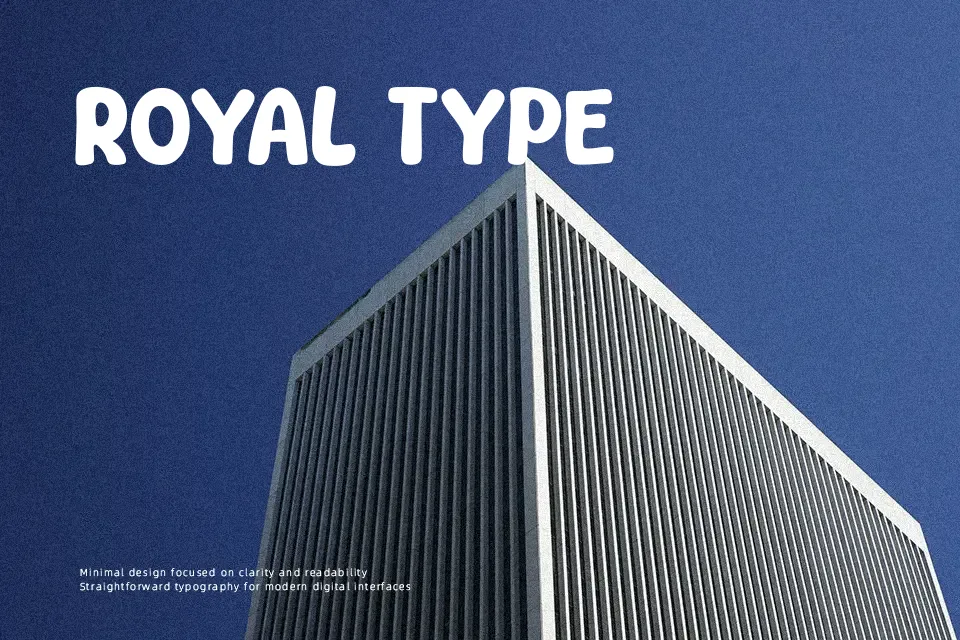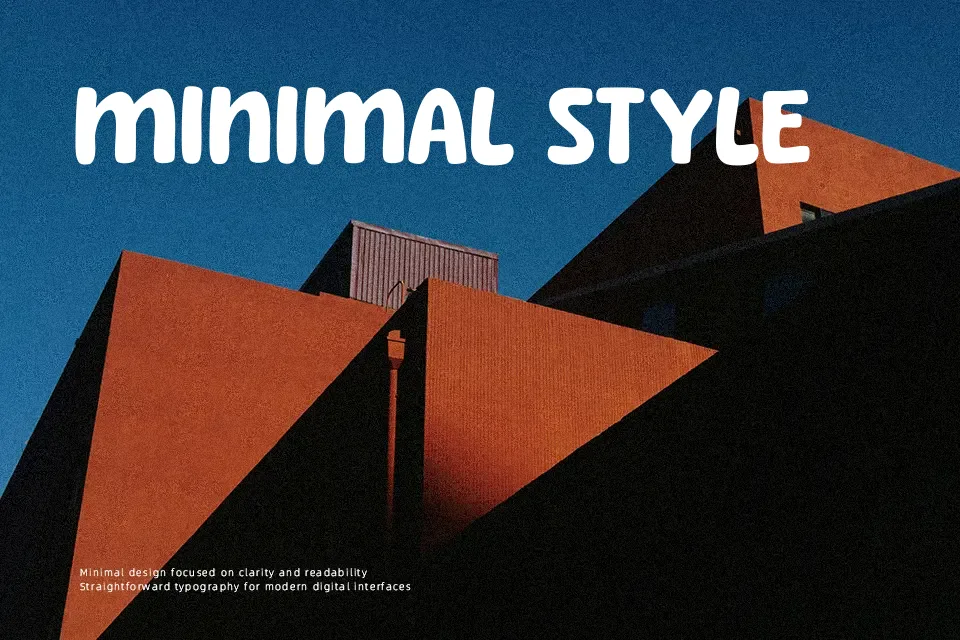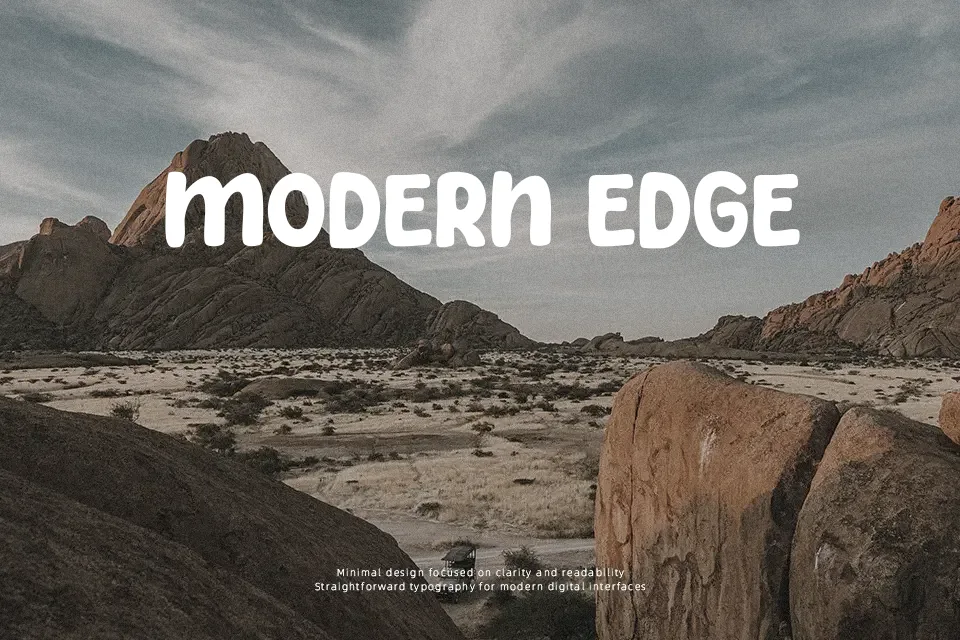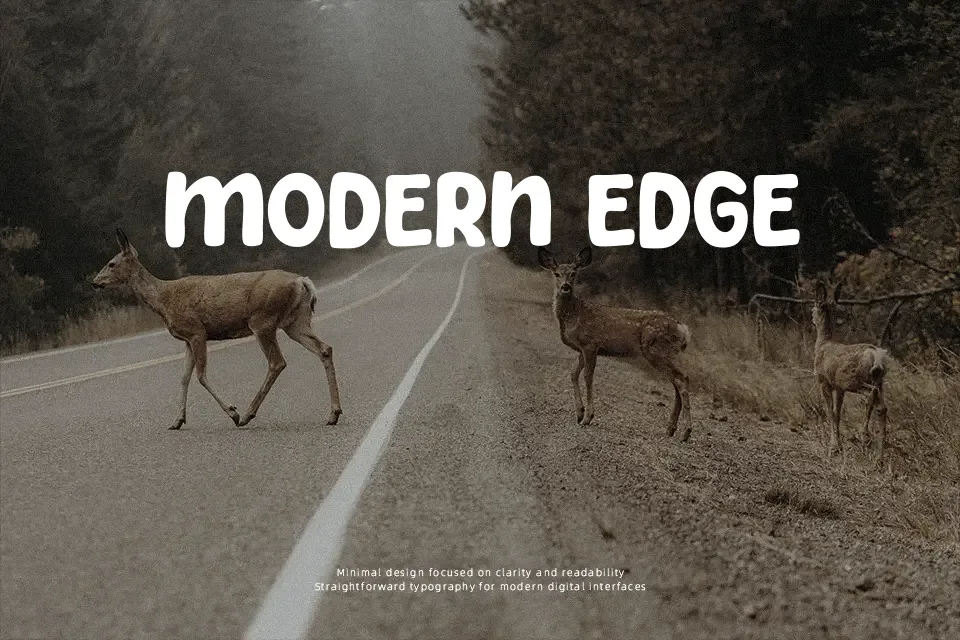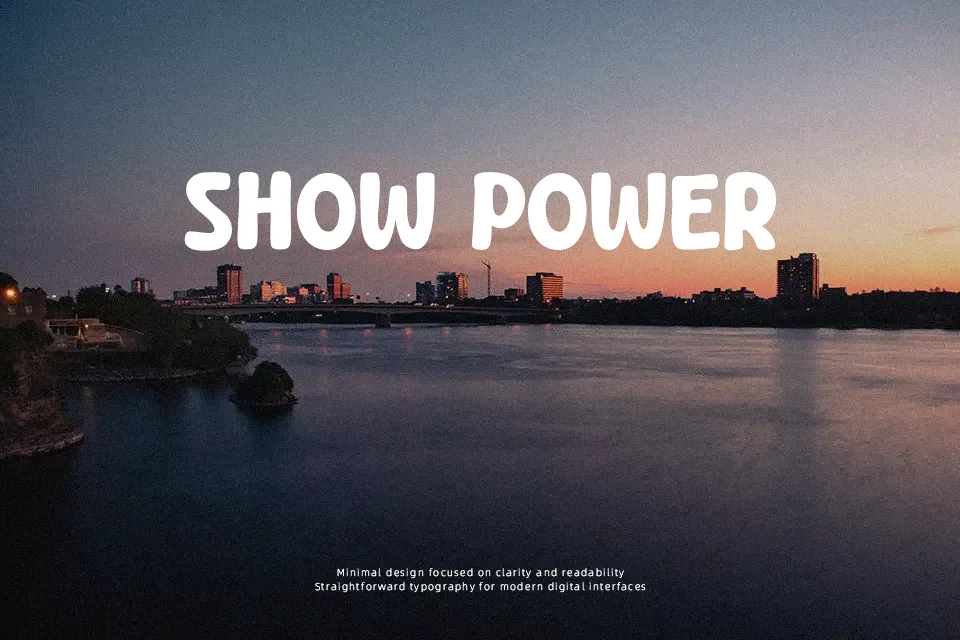
Bread Coffee Font
Bread Coffee is a bold display script with thick, rounded strokes, loose spacing, and irregular letterforms that read like handwritten bubble letters straight from a kids’ storybook. The curves are soft and bouncy, so headlines feel approachable rather than sharp or formal. It works nicely on children’s product labels, birthday banners, classroom posters, or seasonal cards where you want warmth and fun to come through at a glance. On the other hand, the playful rhythm and decorative shapes make it a poor fit for dense paragraphs, serious corporate identities, or very small UI text. If you like rounded cartoon fonts, this one gives a slightly more casual, doodled look than many cleaner comic options.
birthday and party invitations
playful social media graphics
festive event posters
long body text or documents
formal corporate branding
small UI labels or captions
minimalist editorial layouts
Perfect for christmas, kids, and logo, with a cute and cartoon style.